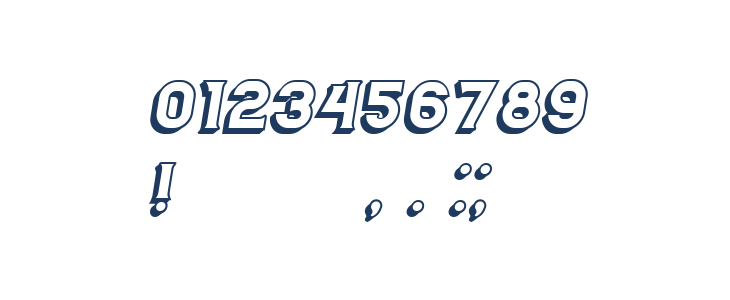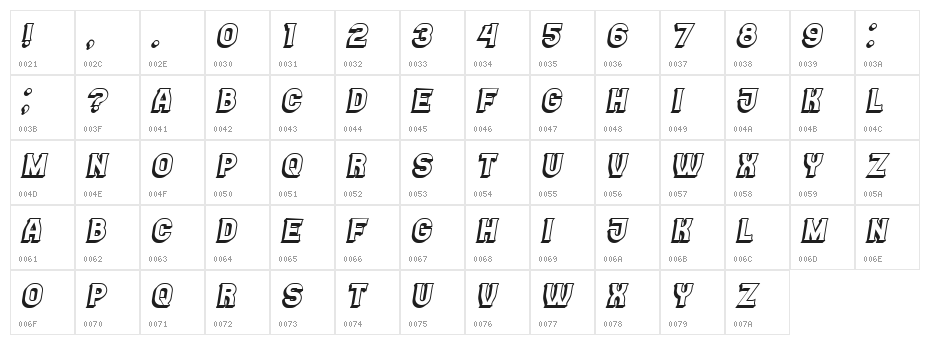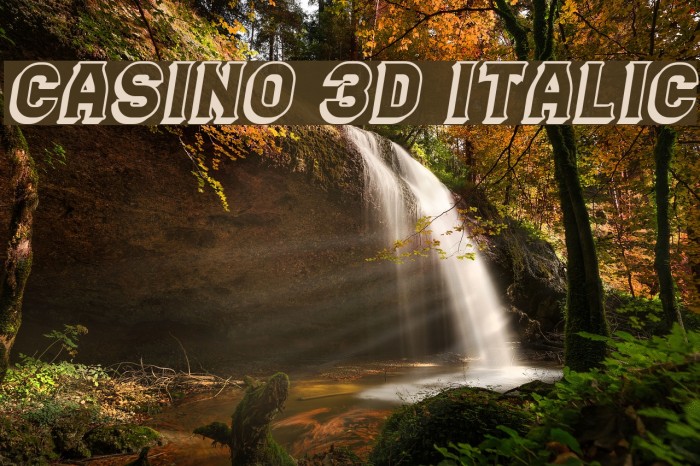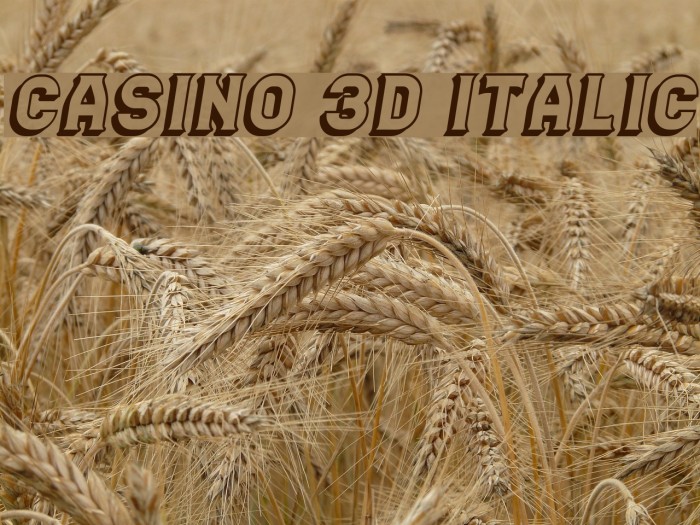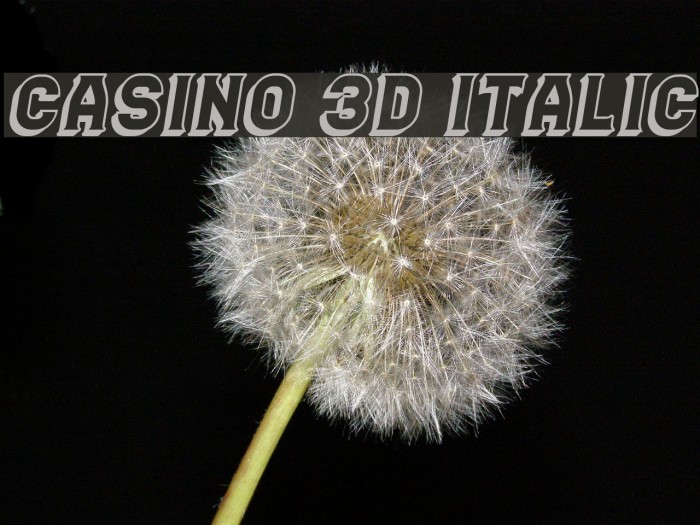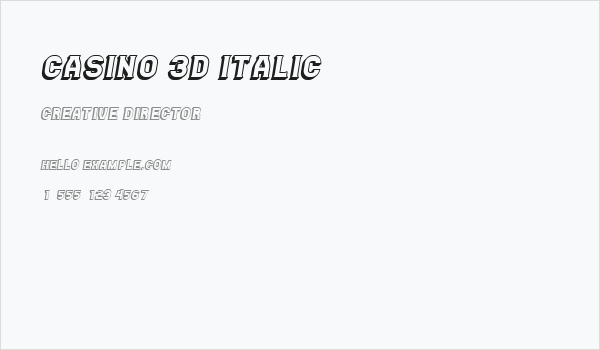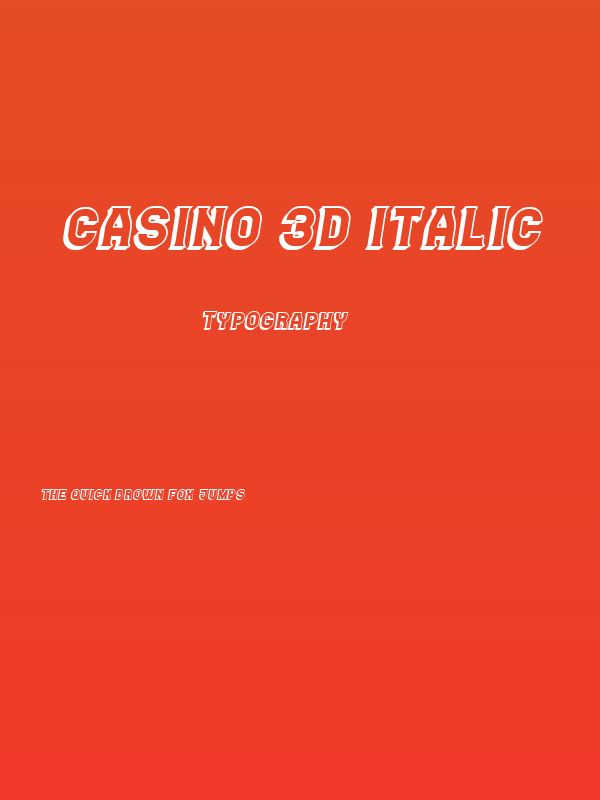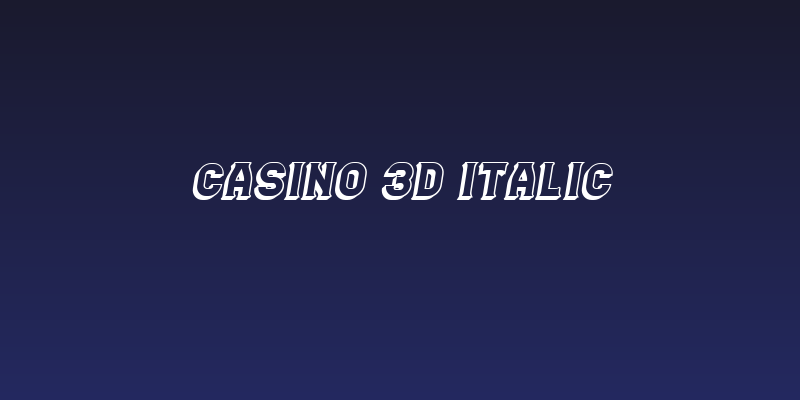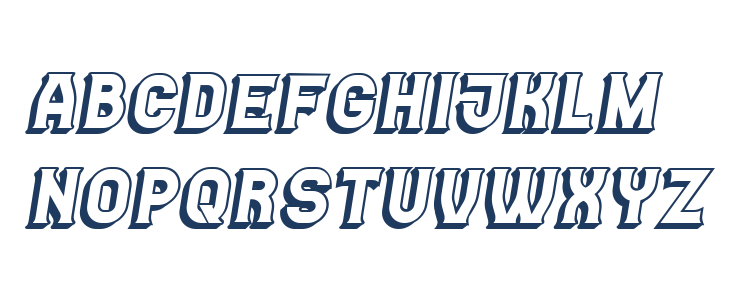
Casino 3D Italic Font
Casino 3D Italic Description
This font features a bold, dynamic 3D effect that gives each character a sense of depth and movement. The italicized style adds a forward-leaning energy, making it ideal for attention-grabbing headlines or titles. The characters are outlined with a shadow effect, enhancing the three-dimensional appearance. The overall design is playful yet assertive, with a modern twist on classic bold typography. The spacing between characters is relatively tight, which helps maintain the compact and impactful look of the text. This font is perfect for projects that require a strong visual presence, such as posters, advertisements, or branding materials.
| Proposed Projects | Ideal for posters, advertisements, branding, and any project needing a strong visual impact. |